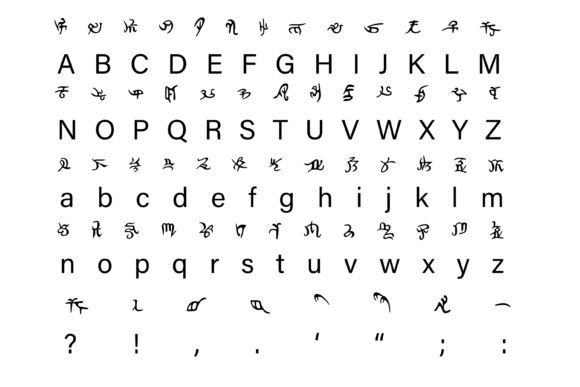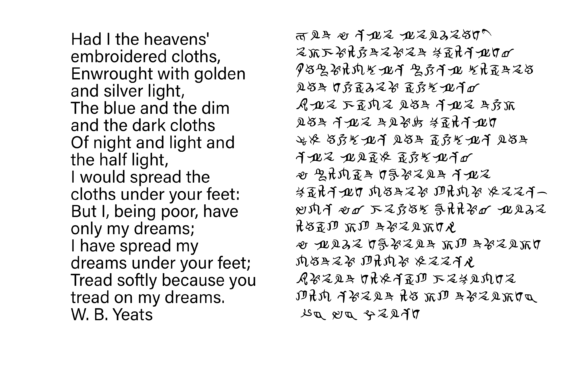
The Magic of Fantasy Script 6 Font: A Designer’s Delight
I’ll never forget the time I was working on a fantasy-themed project for a client, and I just couldn’t find the right font to bring their world to life. The project was a Dungeons and Dragons campaign setting, and I wanted a font that would transport players to a realm of magic and wonder. That’s when I stumbled upon the Fantasy Script 6 Font, and it was love at first sight! ✨
- ✨ The Fantasy Script 6 Font has a unique, whimsical feel that’s perfect for fantasy-themed projects.
- ✅ The font includes the standard English alphabet and basic punctuation, making it easy to use for a variety of design tasks.
- 🎉 The font’s playful, cursive style adds a touch of magic to any design.
While the Fantasy Script 6 Font is a great choice for many projects, there are a few things to keep in mind: 🤔
- ⚠️ The font may not be suitable for very formal or professional designs, as it has a distinctly playful feel.
- ⚠️ Some users may find the font a bit limited in terms of OpenType features and glyphs.
The Story Behind Fantasy Script 6 Font
Fantasy Script 6 Font was designed with the fantasy enthusiast in mind. The designer wanted to create a font that would capture the magic and wonder of fantasy worlds, while still being easy to read and use. The result is a font that’s perfect for Dungeons and Dragons campaigns, fantasy LARP adventures, novels, and more.
| Q: What type of projects is Fantasy Script 6 Font best suited for? | A: Fantasy Script 6 Font is perfect for fantasy-themed projects, such as Dungeons and Dragons campaigns, fantasy LARP adventures, novels, and more. |
| Q: Does Fantasy Script 6 Font include OpenType features and glyphs? | A: Yes, Fantasy Script 6 Font includes basic OpenType features and glyphs, although it may not have as many as some other fonts. |
| Q: Is Fantasy Script 6 Font easy to read? | A: Yes, Fantasy Script 6 Font is designed to be easy to read, even at small sizes. |